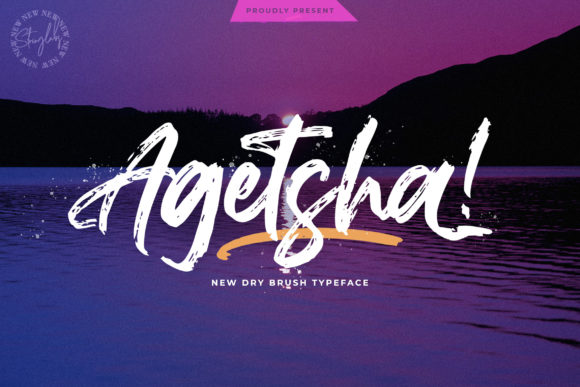
Step into the realm of timeless elegance with Agethsa Font, a captivating handwritten script font crafted by the skilled artisans at StringLabs. A creation that effortlessly captures the charm of a gentle cursive flow, seamlessly blended with the organic textures of a delicate brush.
Embark on a journey of creativity where Agethsa Font becomes your trusted companion, guiding you through a universe of design possibilities. Let your imagination soar as you witness the transformation of your words into exquisite works of art. Each character, meticulously crafted with the utmost care, dances upon the canvas of your designs, leaving a trail of beauty and sophistication.
Indulge in the sheer joy of creating with Agethsa Font, where every letter whispers a tale of love and passion. It's a font that breathes life into your typography, adding a touch of romance to your posters, greeting cards, invitations, and any creative project that seeks a touch of elegance.
Be captivated by the versatility of Agethsa Font. Its graceful curves and sweeping strokes lend themselves effortlessly to a multitude of design styles, allowing you to express your unique artistic vision. From whimsical and playful to classic and refined, Agethsa Font effortlessly adapts to your creative needs, transforming your designs into visual masterpieces.
With Agethsa Font, rediscover the magic of typography and let your words take center stage. It's a font that empowers you to craft designs that speak volumes, leaving an indelible mark on the hearts of your audience. Every project you create with Agethsa Font becomes an expression of your creativity, a testament to your artistic prowess.
Join the ranks of creative visionaries who have embraced the allure of Agethsa Font. Allow its timeless elegance to elevate your designs to new heights, captivating your audience with its undeniable charm. Step into a world of typographic artistry where your words become works of art, where every design tells a story, and where every project is a reflection of your passion.